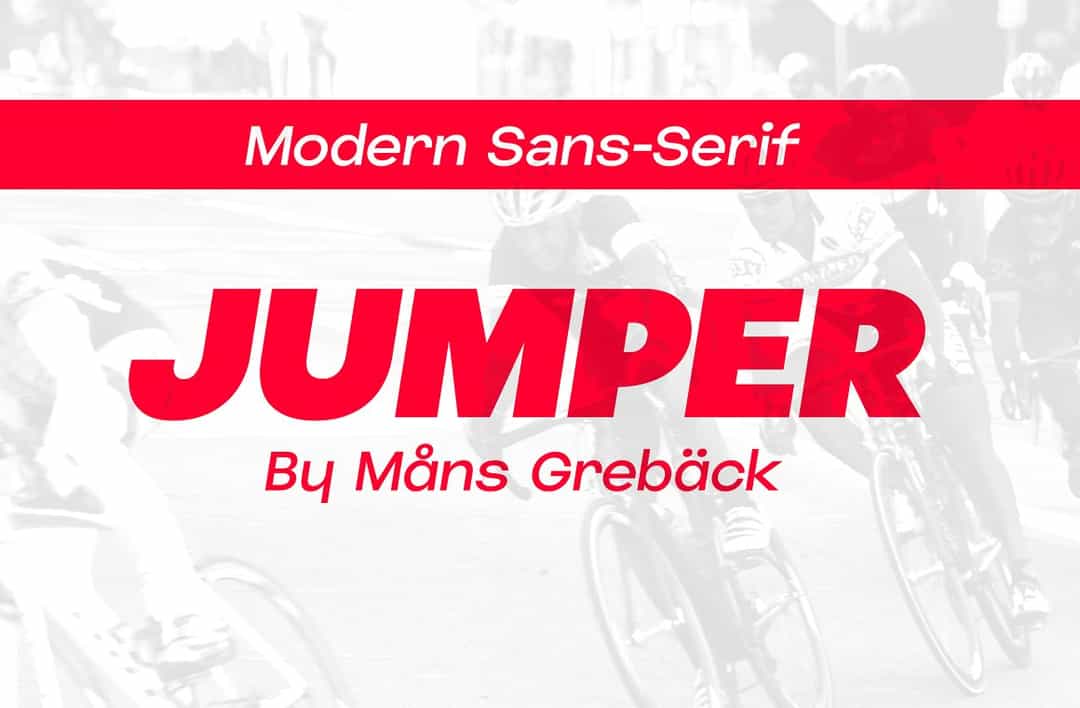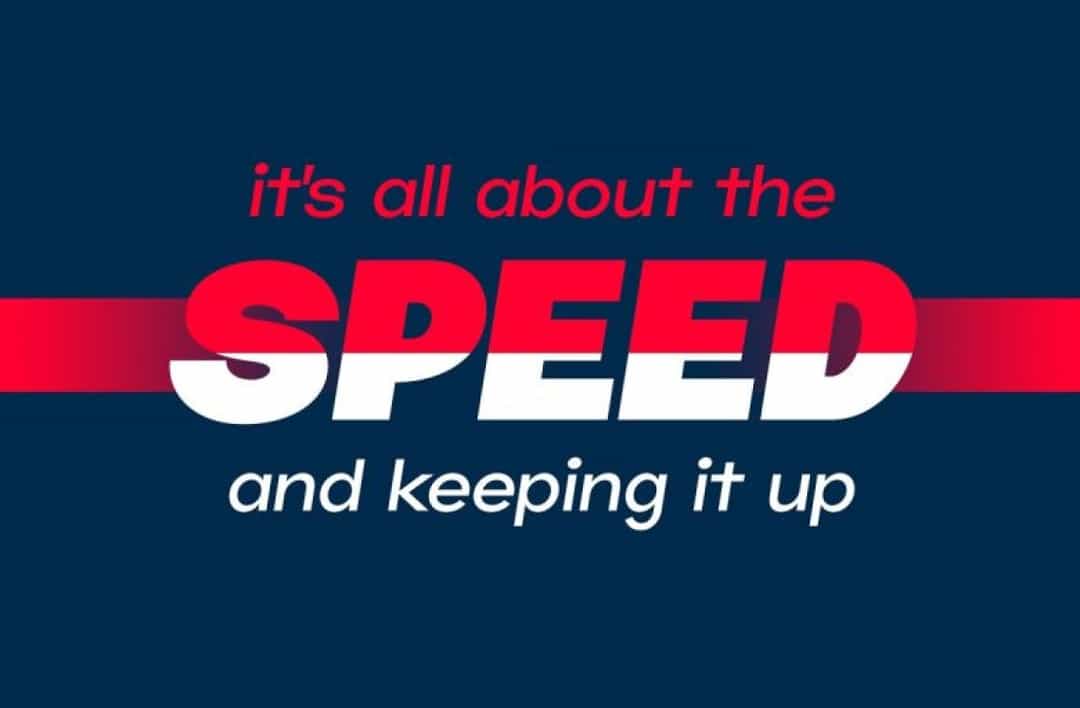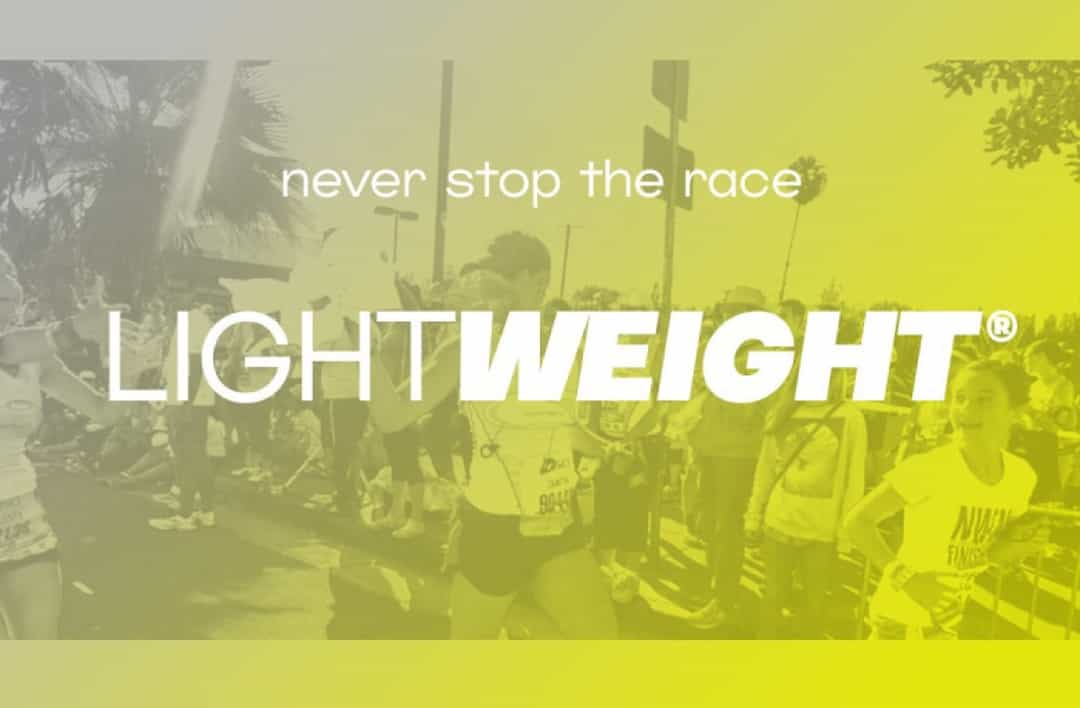
Jumper is an optimistic sans-serif typeface family designed by Mans Greback between 2019-2021. A fast and straightforward typeface suitable for headlines, logotypes or body-text use; its geometric components blend harmoniously with organic shapes for professional lettering that stands the test of time.